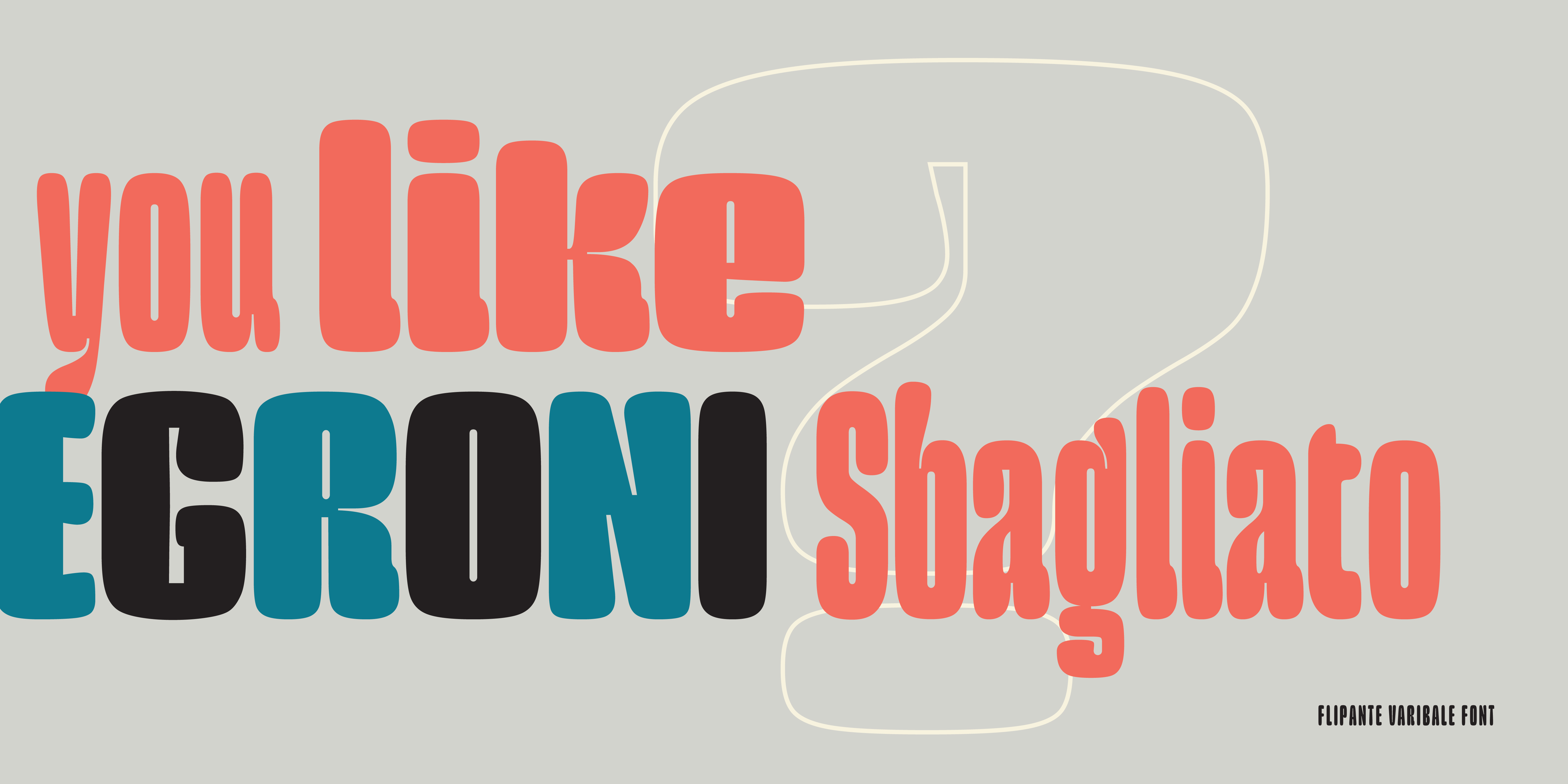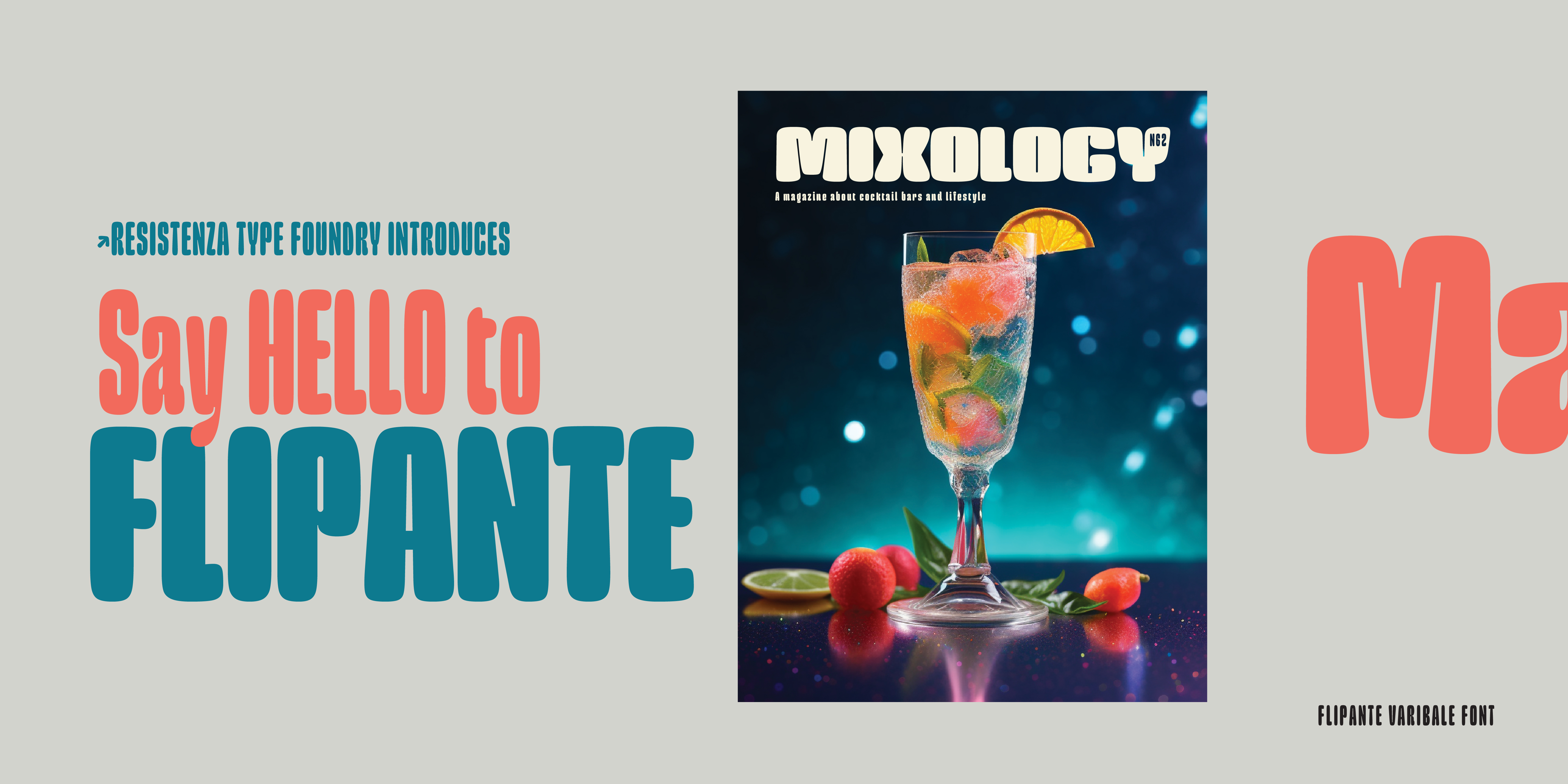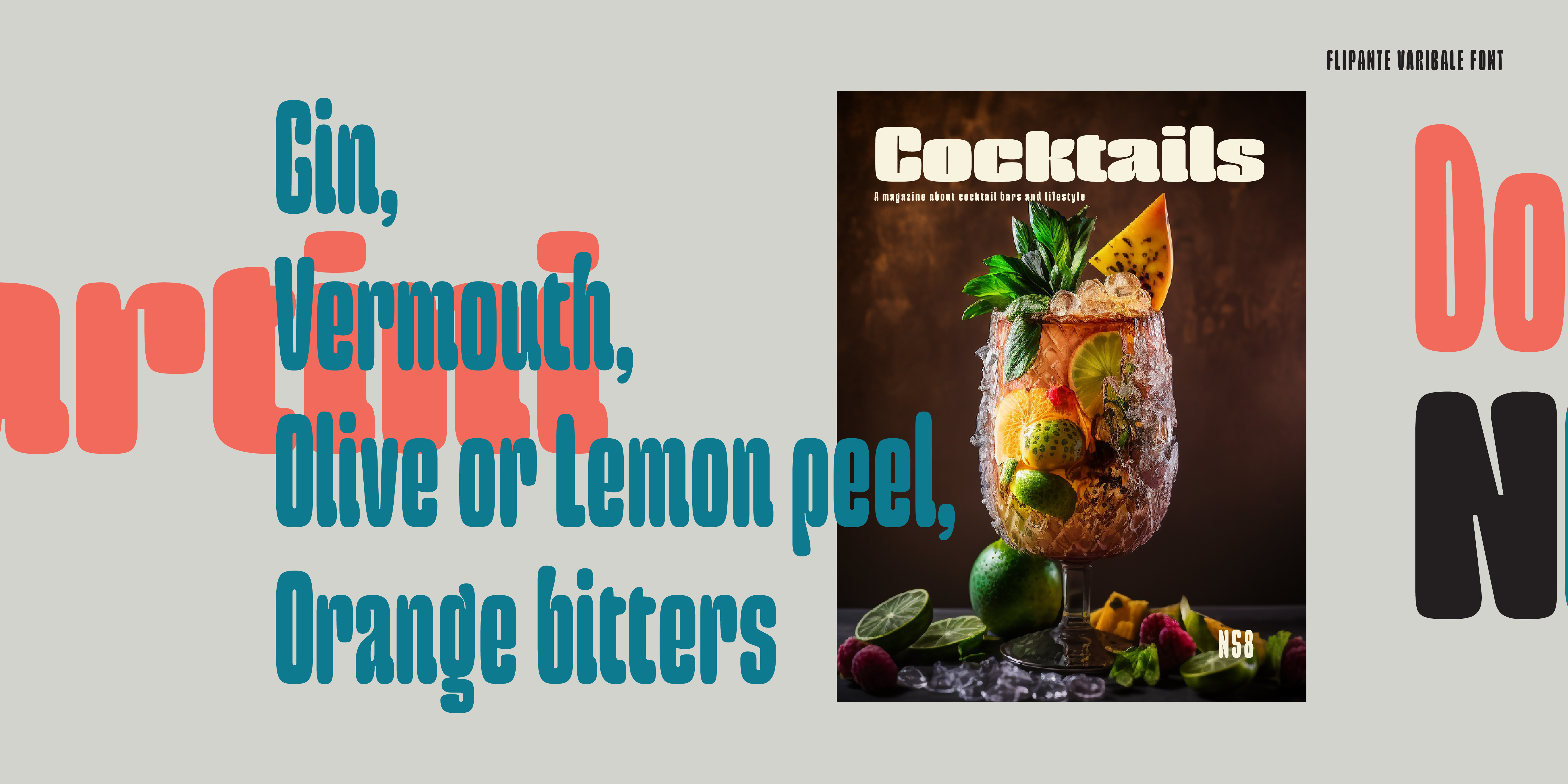
Flipante
Designed by Resistenza Type FoundryOur condensed to extended font is perfect for multiple uses, from branding to packaging designs. Its extendable and variable design makes it great for all kinds of projects. Its tubular shapes, ink traps and juicy curves make it both aesthetic and functional. Its condensation also allows a great flexibility, allowing you to adapt it to any project's need. Its versatility also makes it great for both print and digital projects. With this font's easy to use features, your designs will look good on any project or medium.